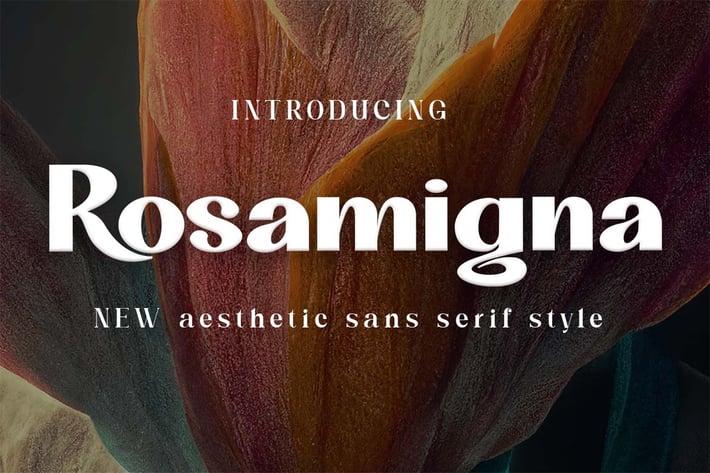
Rosamigna - Sans Serif Font
Introducing Rosamigna, a beauty, simple, and casual sans serif font. So perfect for you who needs a typeface for logo designs, magazine, social media, brochure, and many more.
+ Uppercase
+ Lowercase
+ Numerals
+ Punctuation